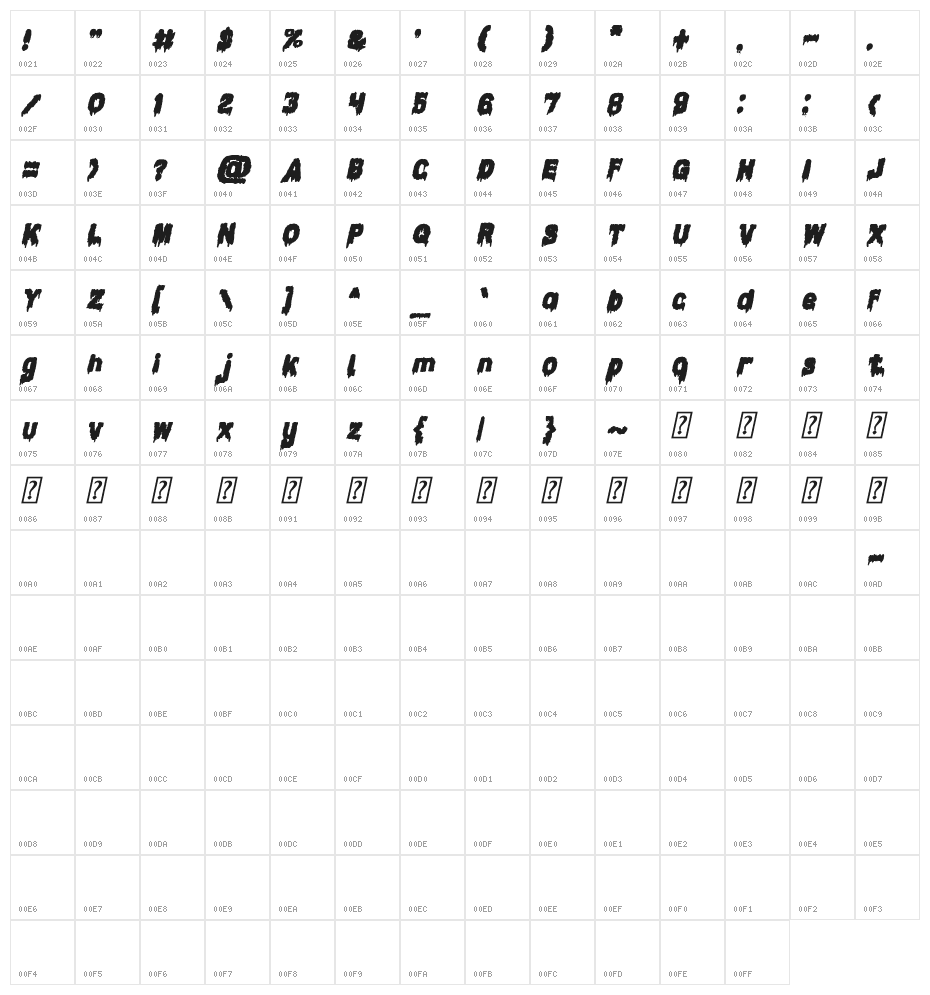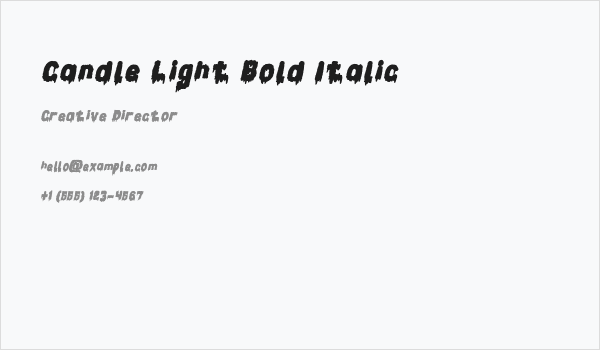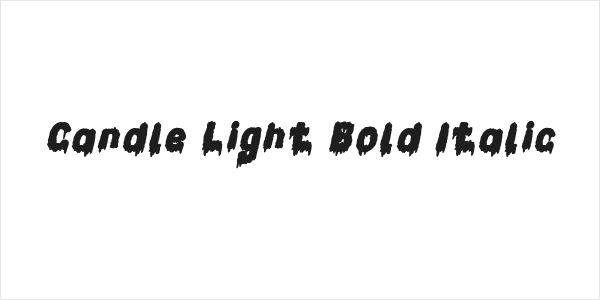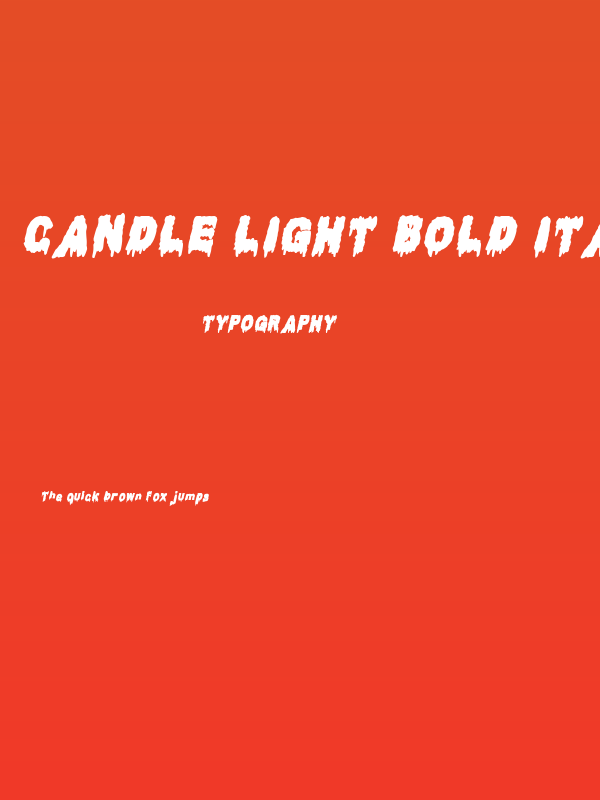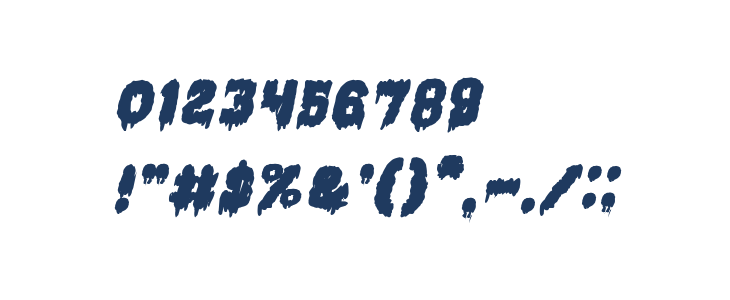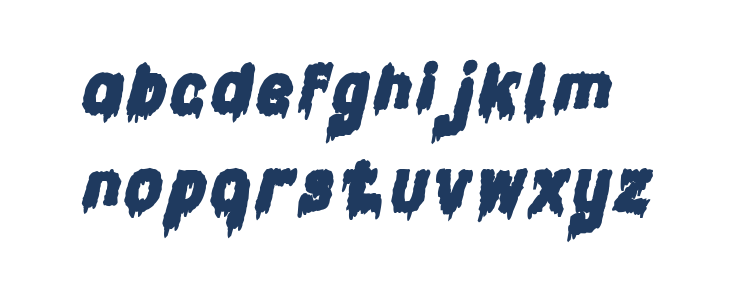
Candle Light Bold Italic Font
Candle Light Bold Italic Description
This font features a bold and italicized style with a unique, dripping effect reminiscent of melting wax or candlelight. The characters are thick and have a rough, uneven texture that gives them a dynamic and slightly chaotic appearance. The uppercase and lowercase letters maintain a consistent style, with the uppercase being slightly larger and more pronounced. Numbers and special characters follow the same design, ensuring a cohesive look across all text. The font's distinctive style makes it stand out, ideal for creating eye-catching designs.
| Proposed Projects | Perfect for Halloween-themed designs, horror movie posters, spooky invitations, or any project requiring a dramatic and eerie aesthetic. |